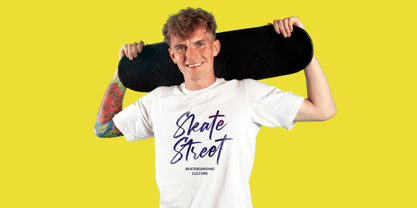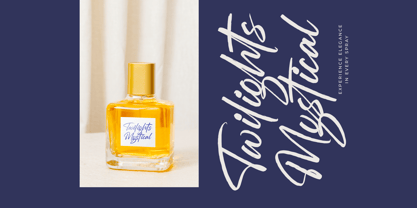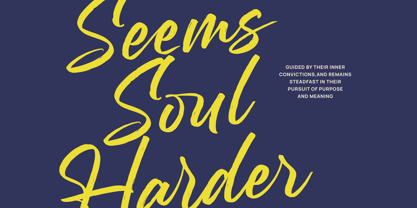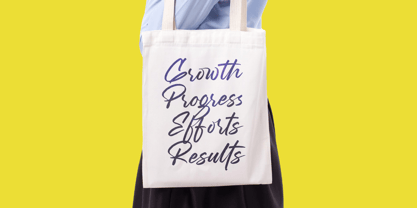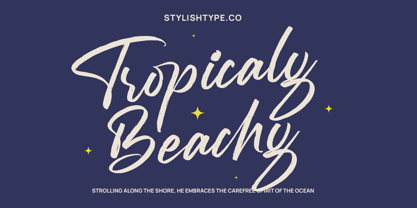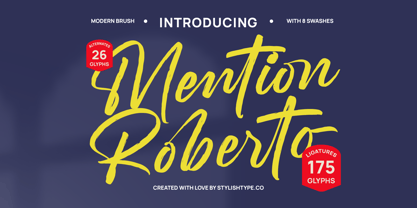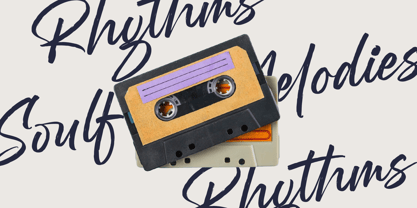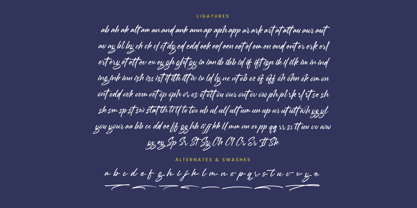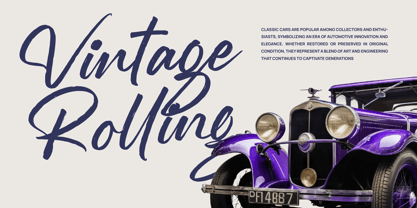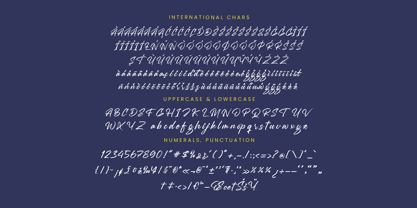
Mention Roberto
by Stylishtype Studio
The Mention Roberto Font Family was designed by Heru Utama Putra and published by Stylishtype Studio. Mention Roberto contains 2 styles and family package options. More about this family
Mention Roberto - Modern Brush Font , from Stylishtype, Suitable for any projects such as: logos, branding projects, homeware designs, product packaging, mugs, quotes, posters, shopping bags, t-shirts, book covers, name card, invitation cards, greeting cards, label, photography, watermark, special events, and all your other luxury and beautiful projects that need a Luxury Script taste.